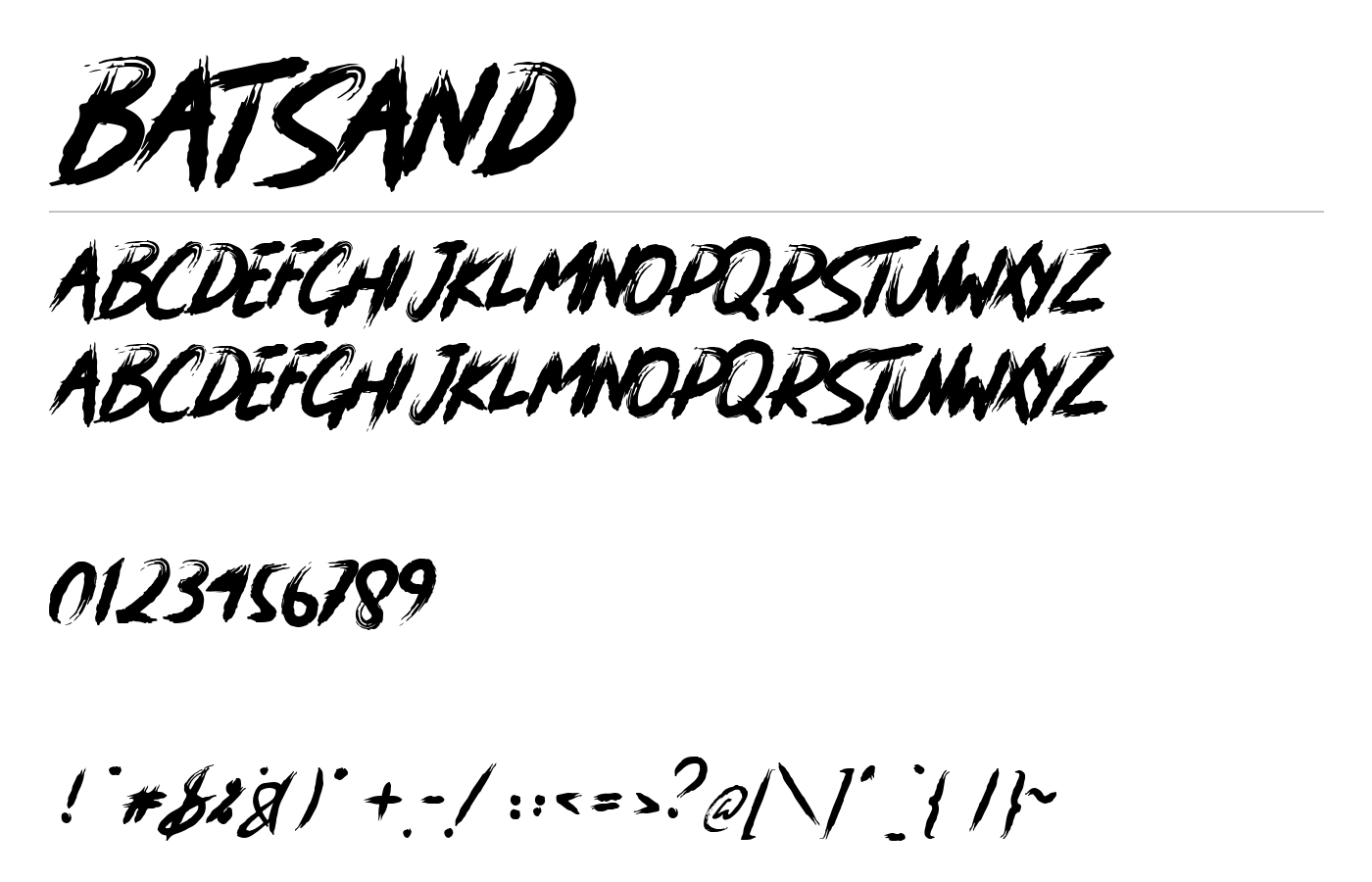
Batsand is a bold, expressive brush script font that captures an energetic and hand-painted feel with its rough, uneven strokes and dynamic texture. Its all-uppercase style and high contrast in stroke thickness make it perfect for eye-catching headlines, logos, and creative projects seeking a raw, artistic vibe. This font works especially well where a bold, informal, and lively personality is needed to convey creativity and individuality.
Batsand Font
About Batsand Font
| Font family | Batsand Font |
| Designer | Lettersiro 2018 |